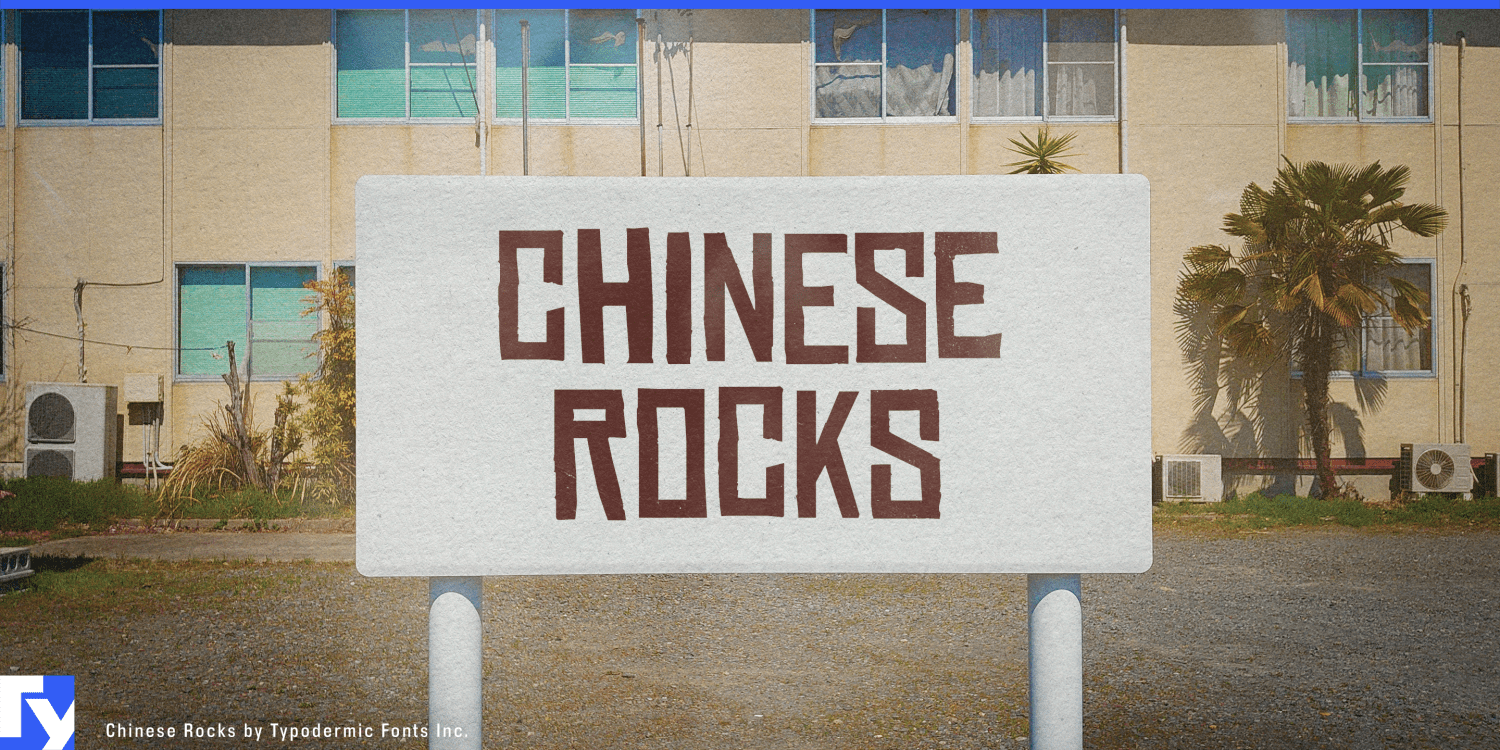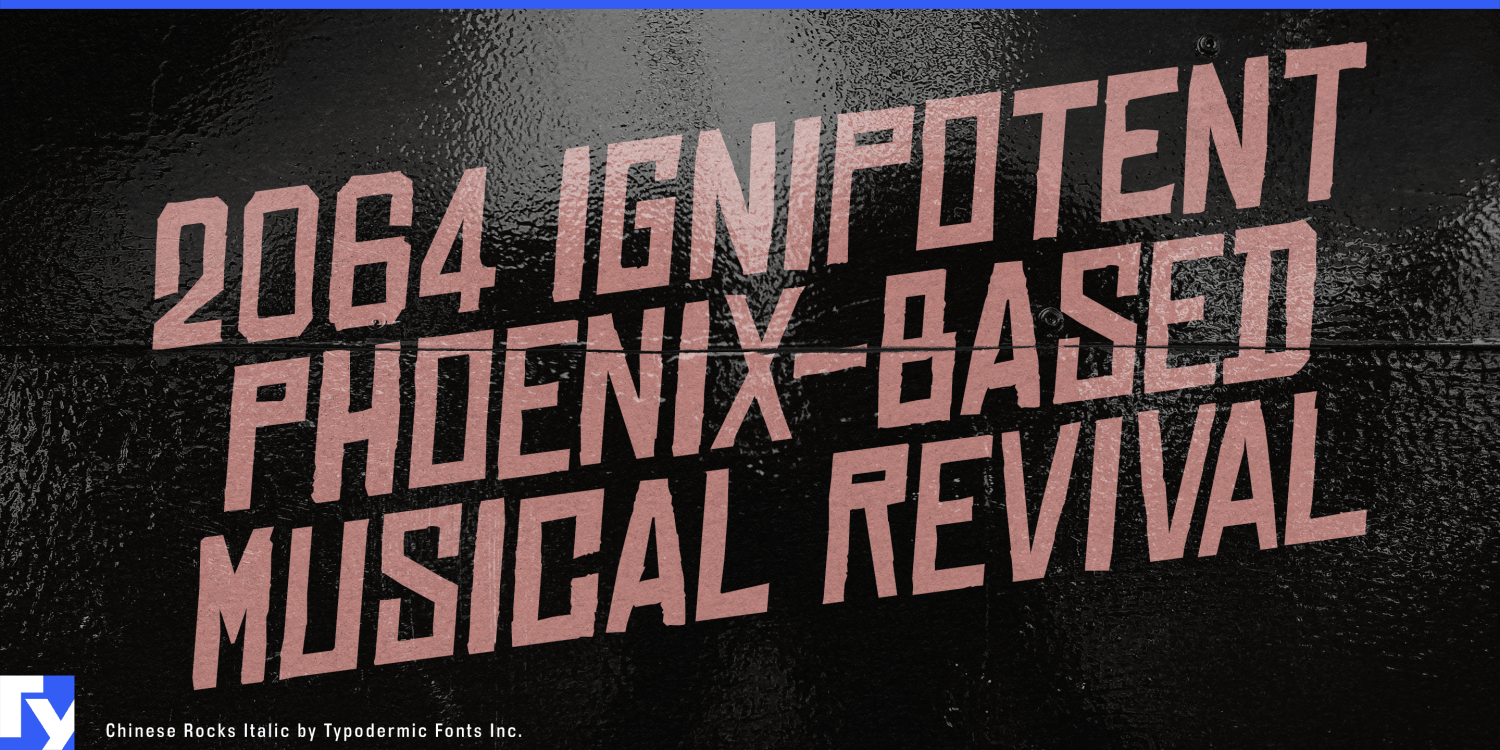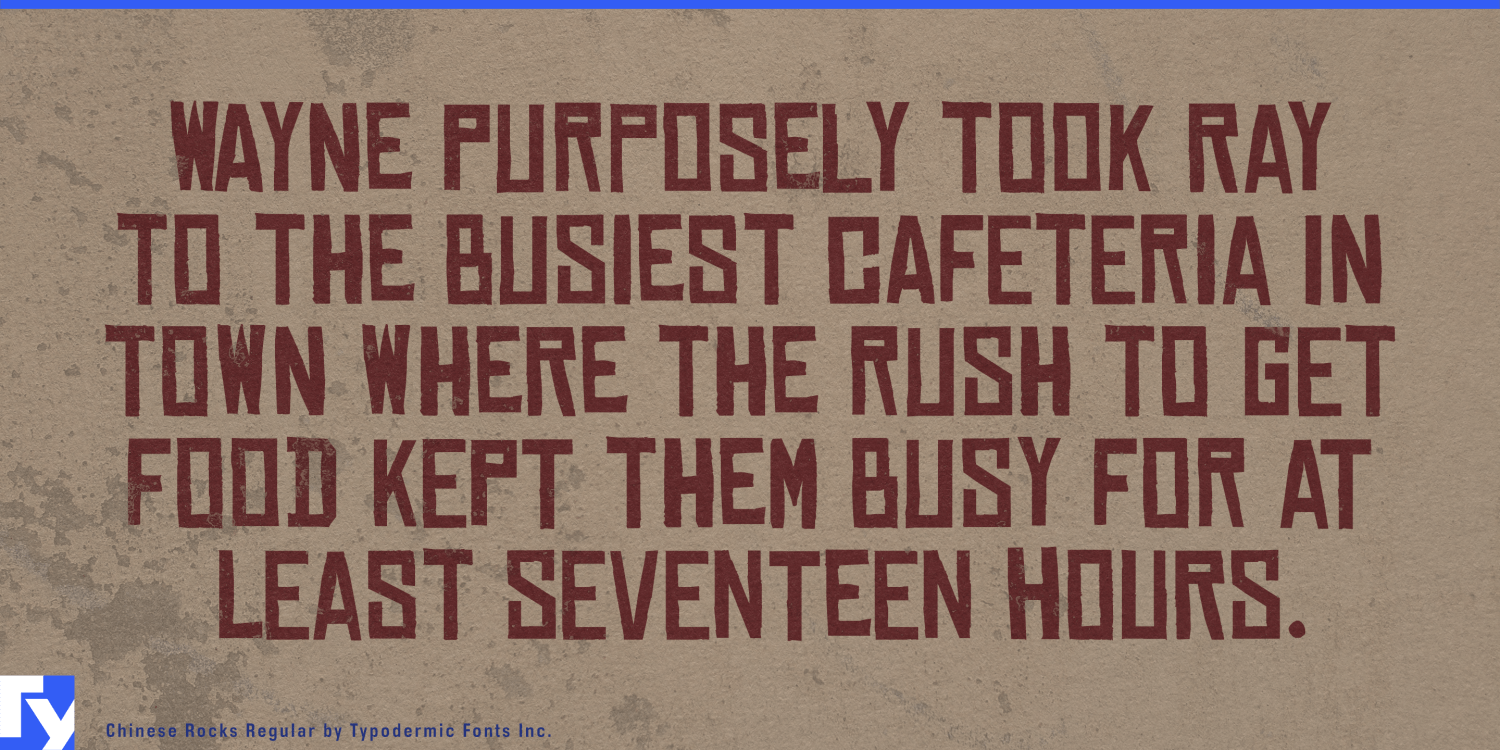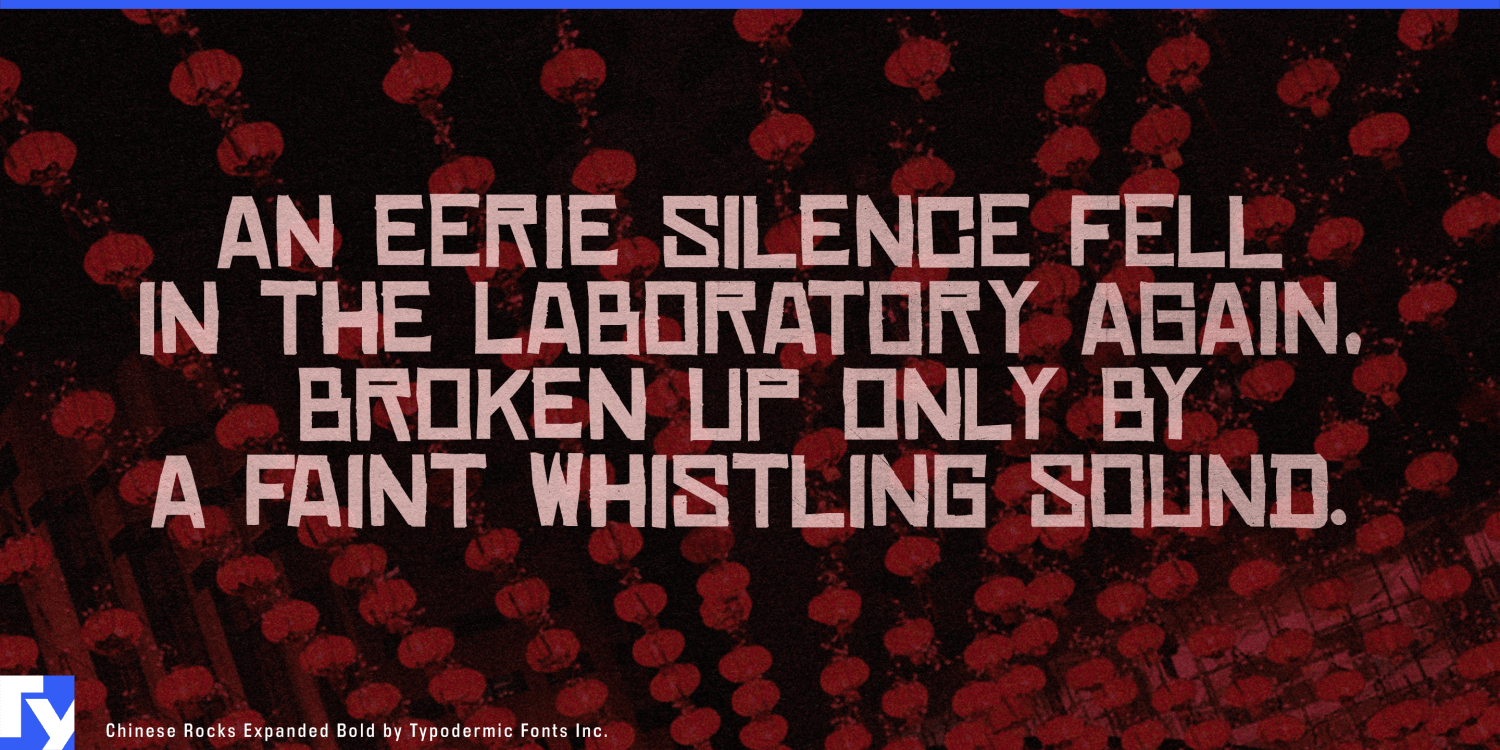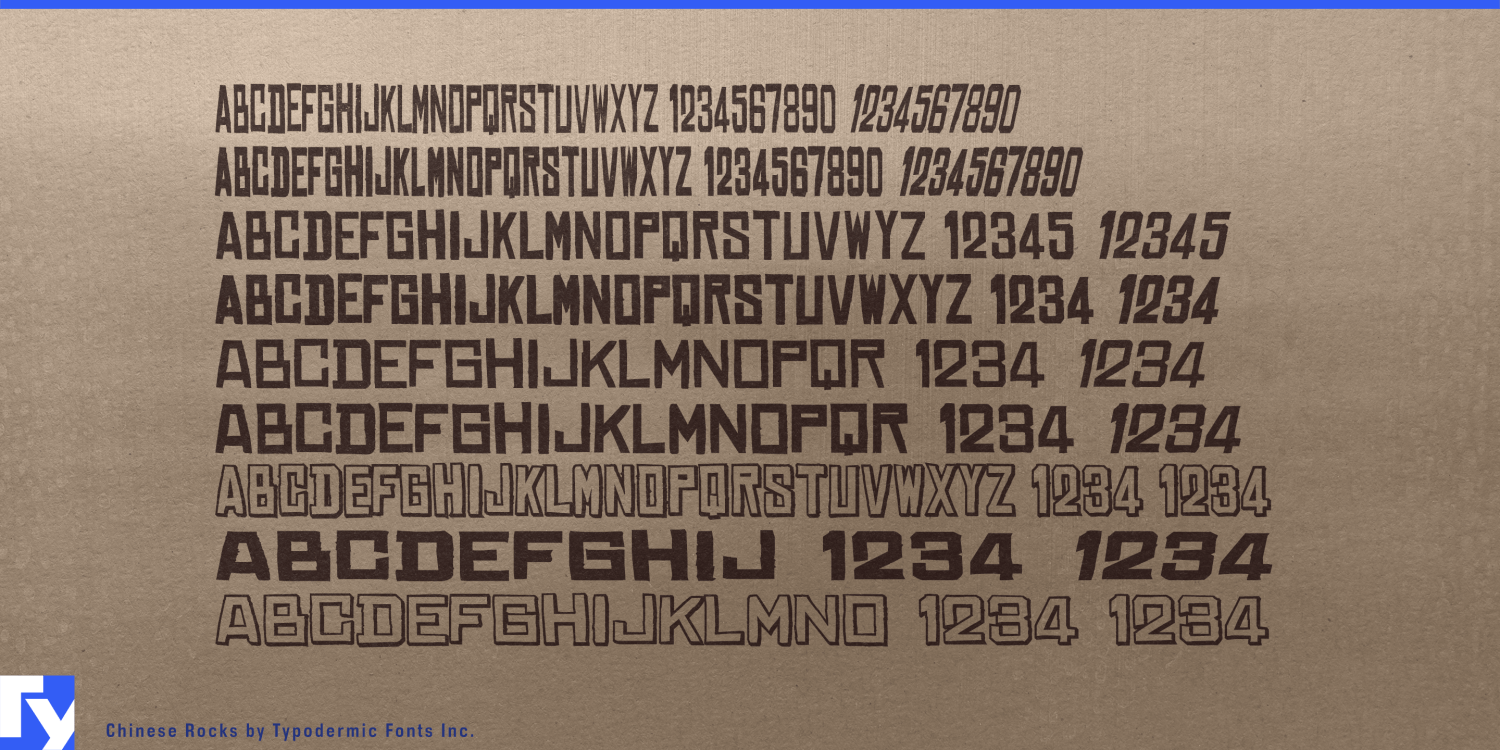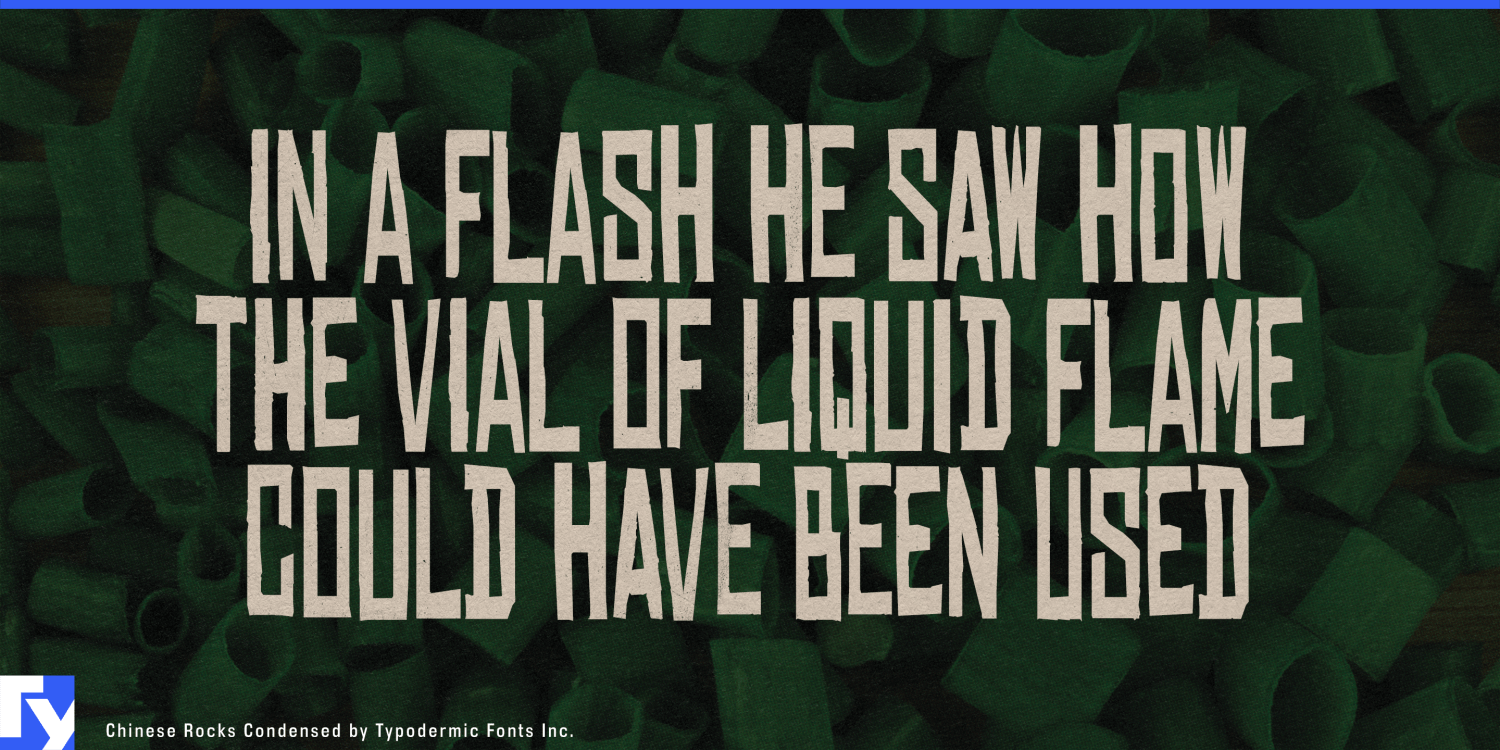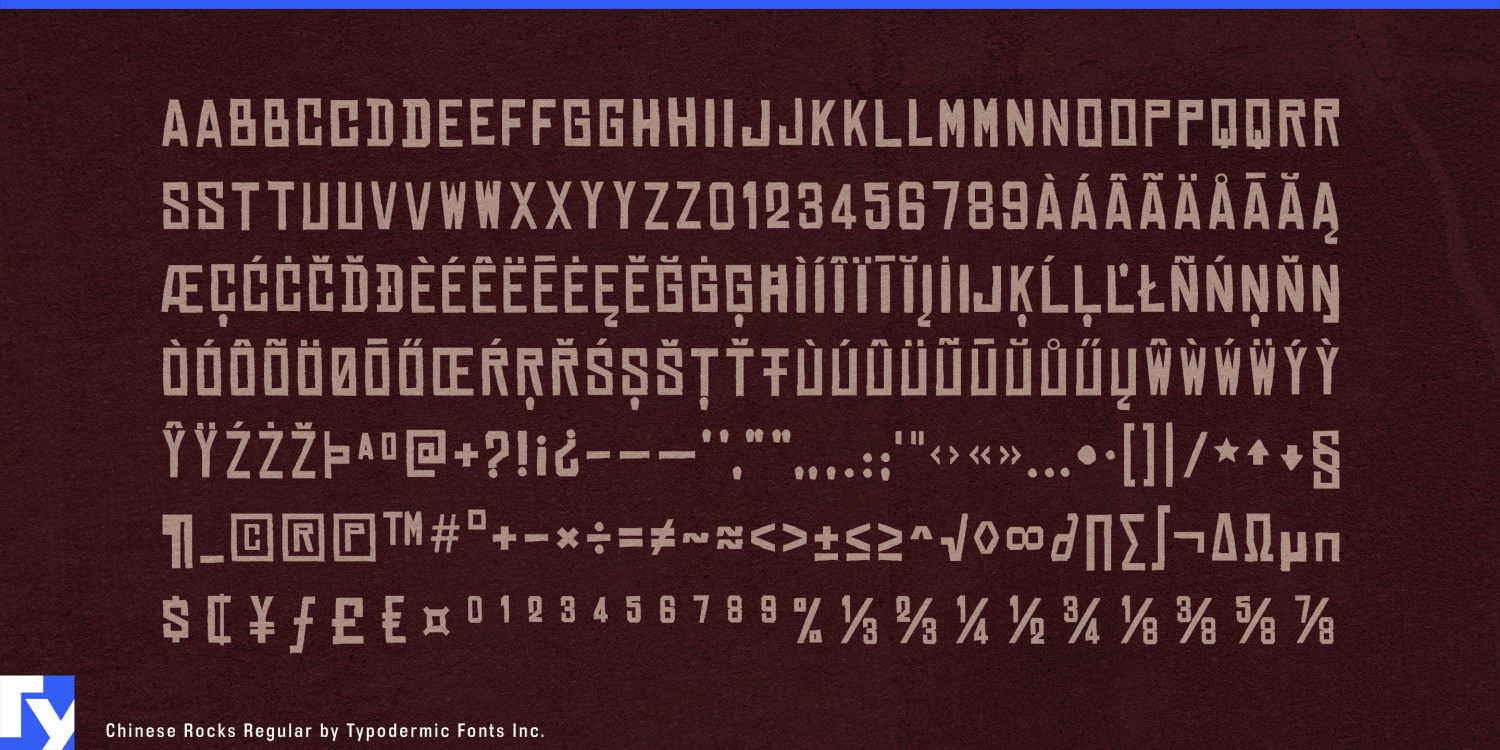
Chinese Rocks
Font Family by Typodermic
Unleash the raw power of authentic expression with Chinese Rocks, a typeface that doesn’t just communicate—it resonates with the gritty pulse of urban life. Inspired by the hand-cut rubber-stamp lettering adorning 20th-century Chinese export crates, this font family embodies the spirit of unfiltered creativity and cultural crossroads.
Chinese Rocks isn’t merely a font; it’s a visual storyteller. Each character bears the marks of artisanal craftsmanship, as if carved by hands that have weathered countless storms. This typeface doesn’t whisper—it shouts from the rooftops, infusing your designs with an undeniable edge that cuts through the noise of conventional typography. With sixteen distinct styles, Chinese Rocks offers a veritable playground for designers. From the unapologetic boldness of Fat to the space-efficient elegance of Condensed, and the dimensional depth of Shaded, this versatile family adapts to your creative vision. Each variation maintains the core DNA of Chinese Rocks while offering a unique flavor, ensuring your message always hits the mark, whether you’re crafting edgy band posters or branding a rebellious startup.
Chinese Rocks speaks the language of the streets fluently across cultures. Its support for a vast array of Latin-based writing systems ensures your message retains its raw authenticity whether it’s plastered on walls in Warsaw or adorning t-shirts in Gothenburg. It’s equally at home on a Berlin punk rock album cover as it is on the menu of a trendy São Paulo street food joint. In a world awash with polished, sanitized designs, Chinese Rocks stands as a beacon of authenticity. It’s more than a typeface—it’s a statement, a rebellion against the mundane, and a celebration of the beautiful imperfections that make us human. Each letter tells a story of journeys taken, obstacles overcome, and boundaries pushed.
So why blend in when you can stand out? Embrace the unvarnished truth of Chinese Rocks and watch as your designs come alive with unbridled energy and character. It’s time to let your typography speak volumes—and with Chinese Rocks, every word is a manifesto, every sentence a revolution. From gig posters that demand attention to branding that refuses to be ignored, Chinese Rocks transforms ordinary text into extraordinary visual experiences. It’s not just about making a statement—it’s about making an impact that lingers long after the first glance.
Dive into the world of Chinese Rocks and discover how its raw, unpolished energy can elevate your creative projects. Whether you’re a seasoned designer or a budding artist, this typeface gives you the tools to craft messages that don’t just communicate—they resonate. It’s time to stamp your mark on the world with the unmistakable grit and character of Chinese Rocks.